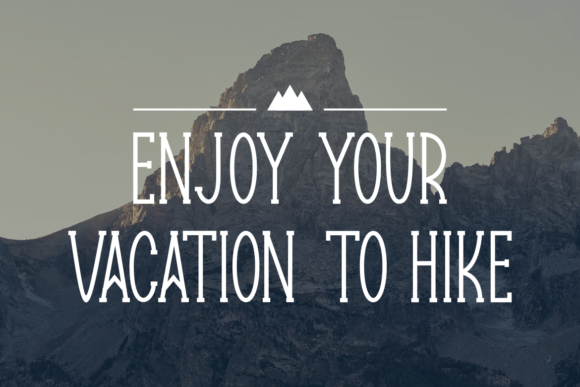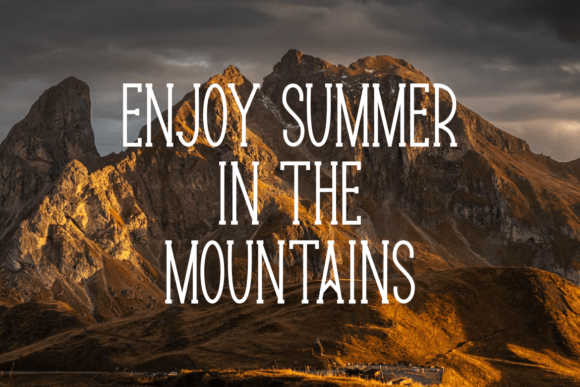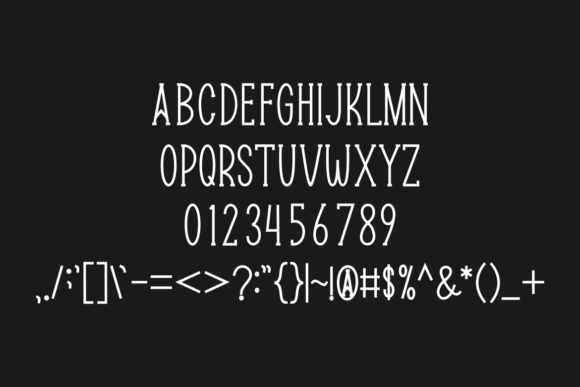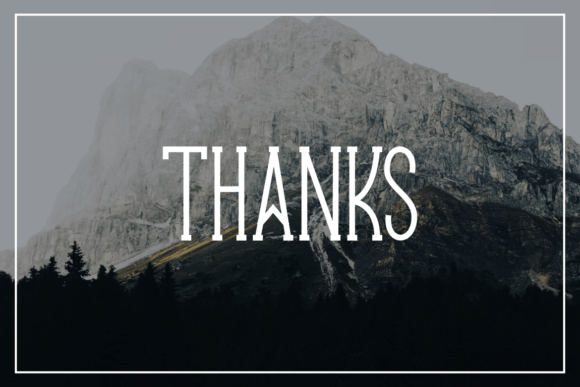
Unleash Your Creativity with Greetmountain Font
Have you ever been stuck in front of your computer screen, staring at a blank canvas, waiting for that spark of inspiration to strike? You know, that moment when everything falls into place and your design takes shape? For designers, these moments are what make all the hard work worth it.
Introducing Greetmountain Font, a modern display font designed to elevate your branding projects to the next level. With its bold and authentic style, this font is perfect for logos, t-shirt printing, esports, and any other project that requires a statement piece. Whether you’re a seasoned designer or just starting out, Greetmountain Font is a valuable addition to your toolkit, offering endless possibilities for creative expression.
So why settle for ordinary when you can make a bold statement with Greetmountain Font? Dive in and discover the endless possibilities this font has to offer.
Greetmountain Font Key Features
- Font Family: Greetmountain Font is a unique sans-serif typeface designed for digital and print media.
- Unique Characteristics: Features a distinctive rounded design, with subtle curves and geometric shapes that create a friendly and approachable feel.
Greetmountain Font Review
I recently had the chance to work with Greetmountain Font, and I must say it’s a font that brings a mix of modern and natural elements together.
- Unique and refreshing design that’s perfect for outdoor or nature-themed projects.
- Elegant and clean lines that make it suitable for headings and titles.
- The font is highly customizable, with various weight and style options available.
- The font might not be the best choice for body text due to its relatively small character set.
- The font’s natural feel might not be suitable for all types of projects, especially those that require a more formal tone.
Overall, I think Greetmountain Font is a great addition to any designer’s toolkit. It’s perfect for projects that require a unique and natural feel. However, it’s essential to consider its limitations and choose it wisely.
Use the Greetmountain Font to add a unique touch to your designs.
Pair the Greetmountain Font with other unique fonts to create a bold and eye-catching design.
The Greetmountain Font is perfect for:
Brand logos and marketing materials.
Event signage and promotional materials.
Alternatives to Greetmountain Font for Designers
Pacifico is a beautiful, elegant script font that is perfect for creating a warm and inviting atmosphere. It is ideal for use in wedding invitations, branding, and other creative projects where a touch of sophistication is needed.
Compared to Greetmountain Font, Pacifico has a more refined and polished look, making it suitable for high-end designs. While Greetmountain Font has a more rustic feel, Pacifico is ideal for projects that require a more refined and elegant touch.
Great Vibes is a modern, cursive font that is perfect for creating a fun and energetic atmosphere. It is ideal for use in branding, advertising, and other creative projects where a touch of playfulness is needed.
Compared to Greetmountain Font, Great Vibes has a more modern and sleek look, making it suitable for projects that require a fresh and dynamic feel. While Greetmountain Font has a more rustic feel, Great Vibes is ideal for projects that require a more modern and energetic touch.
Alex Brush is a beautiful, handwritten font that is perfect for creating a personal and intimate atmosphere. It is ideal for use in branding, invitations, and other creative projects where a touch of warmth is needed.
Compared to Greetmountain Font, Alex Brush has a more delicate and refined look, making it suitable for projects that require a more subtle and elegant touch. While Greetmountain Font has a more rustic feel, Alex Brush is ideal for projects that require a more personal and intimate touch.